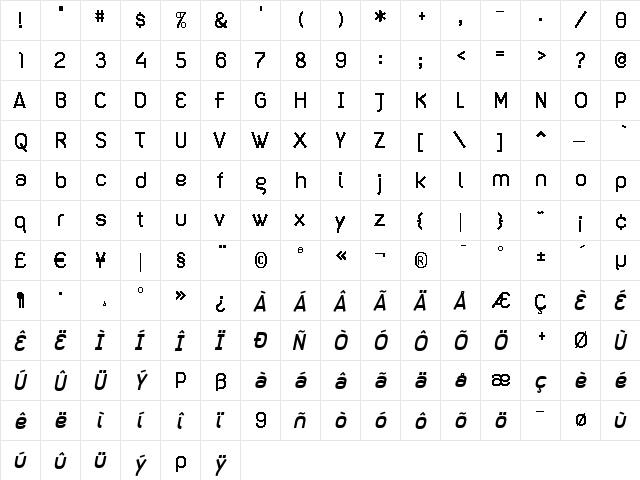
Dispose Bold Oblique
Design Context for Dispose Typeface
Dispose is a composed and adaptable typeface that performs quietly and consistently across a wide range of design contexts. Its italic angle brings a sense of urgency and motion to the letterforms. Its bold stroke weight gives it real presence on the page.
Pro Tip: Try Dispose for annotation and caption copy alongside an upright companion — the contrast in angle creates a dynamic but ordered typographic system.